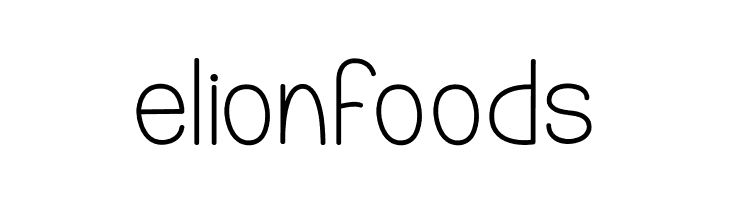
A bold, distressed font with a gritty, textured appearance.
A modern, elegant script font with graceful curves and unique swashes.
A bold, expressive handwritten font with dynamic strokes and unique character flourishes.
A dynamic, expressive handwritten font with fluid, cursive strokes.
A dynamic, handwritten-style font with bold, expressive characters.
A dynamic and expressive handwritten font with bold, fluid strokes.
A modern, high-contrast font with elegant, slender forms and decorative elements.
A bold, expressive brush-style font with dynamic strokes and a hand-painted appearance.
Elegant handwritten script font.
A modern, elegant script font with flowing, interconnected characters.
A cursive, handwritten font with elegant, flowing strokes.
A graceful and elegant script font with flowing, cursive letterforms.
A bold, expressive script font with a handwritten style.
A modern, elegant script font with flowing, connected strokes.
A flowing, cursive font with elegant, interconnected letters.
A casual, flowing handwritten script with elegant, connected letters.
An elegant, flowing script font with a natural handwritten style.
An elegant, whimsical script font with decorative swirls and artistic flair.
A playful, casual handwritten font with uneven strokes and organic flow.
A playful, casual handwritten font with irregular strokes and an organic flow.
A lively, cursive font with a fluid, handwritten style.
A whimsical handwritten font with thin, flowing lines and elegant curves.
An elegant script font with flowing, interconnected letters and high contrast strokes.
A graceful script font with flowing, interconnected letters and artistic flourishes.
A playful and elegant script font with a handwritten style.
An elegant, cursive font with flowing, graceful letterforms and bold numerals.
An elegant script font with flowing, cursive letterforms and a classic calligraphic style.
( Fonts by Fontaris Studio - Aris Dpu - Personal-use only. For commercial use please contact owner. )
A dynamic and fluid script font with elegant, flowing letterforms.
( Fonts by Haksen Studio - Sarwo Edhi Prayitno - Personal-use only. For commercial use please contact owner. )
A cursive script font with elegant swashes and artistic flair.
( Fonts by Fajar Abdul Fattah - https://fontbundles.net/sibelumpagi-studio - Personal-use only. For commercial use please contact owner. )
A flowing, elegant cursive font with a modern handwritten style.
A playful and elegant script font with flowing, cursive letterforms.
An elegant, flowing script font with bold, expressive strokes.
A flowing, elegant cursive font with interconnected strokes.
A bold, expressive handwritten font with brush-like strokes.